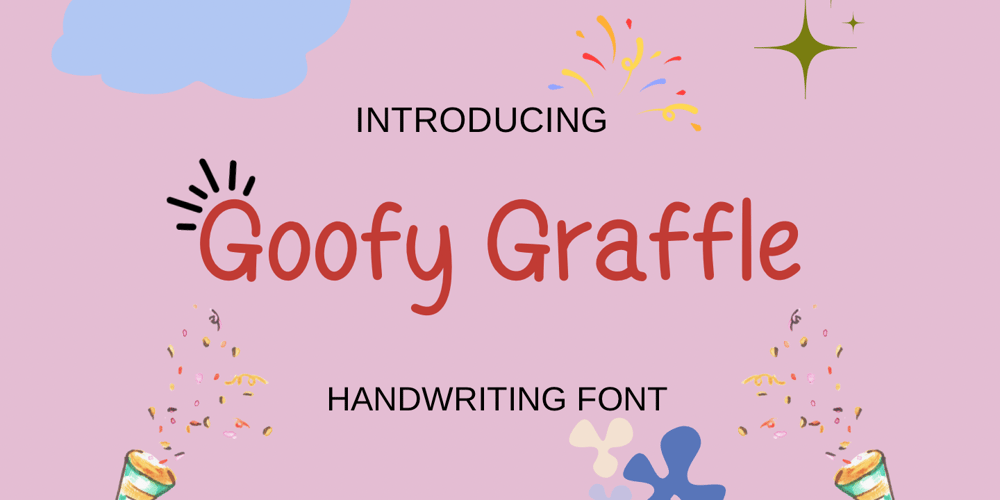
Goofy Graffle Font Family was designed by David Perkasya and published by Insan Perkasya. Goofy Graffle contains 1 styles and family package options. Introducing “Groofy Graffle,” a font that embodies the art of handcrafted monoline strokes, resulting in a font that’s both natural and uniquely captivating.“Groofy Graffle” is your creative companion for crafting stunning magazine layouts, infusing quotes with a natural and distinctive charm, establishing a memorable brand identity through logos, and addressing a myriad of other design needs.